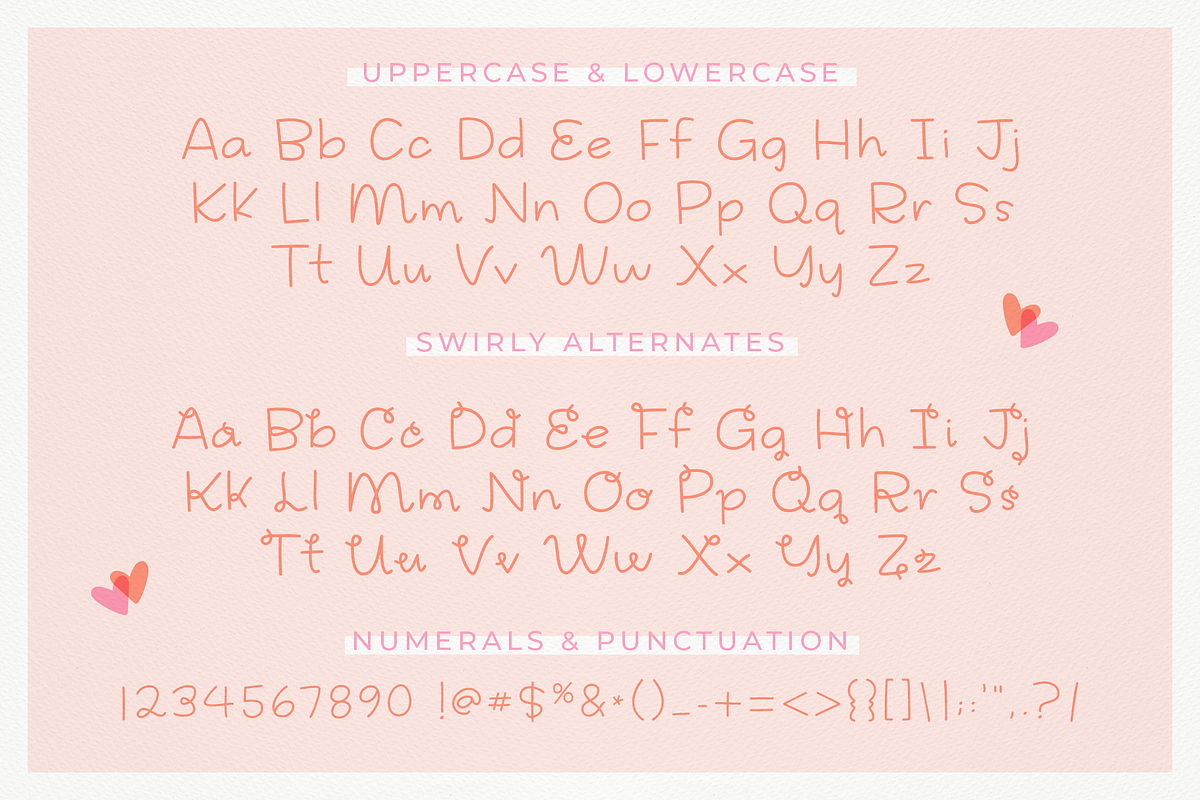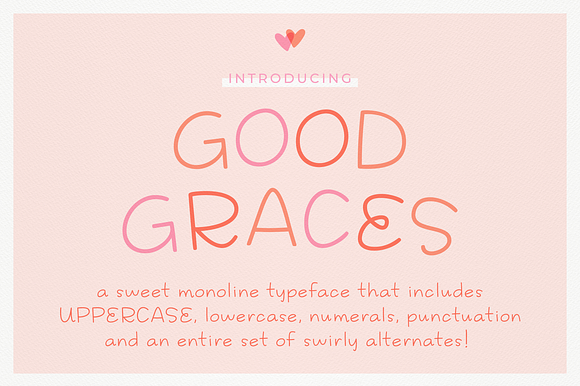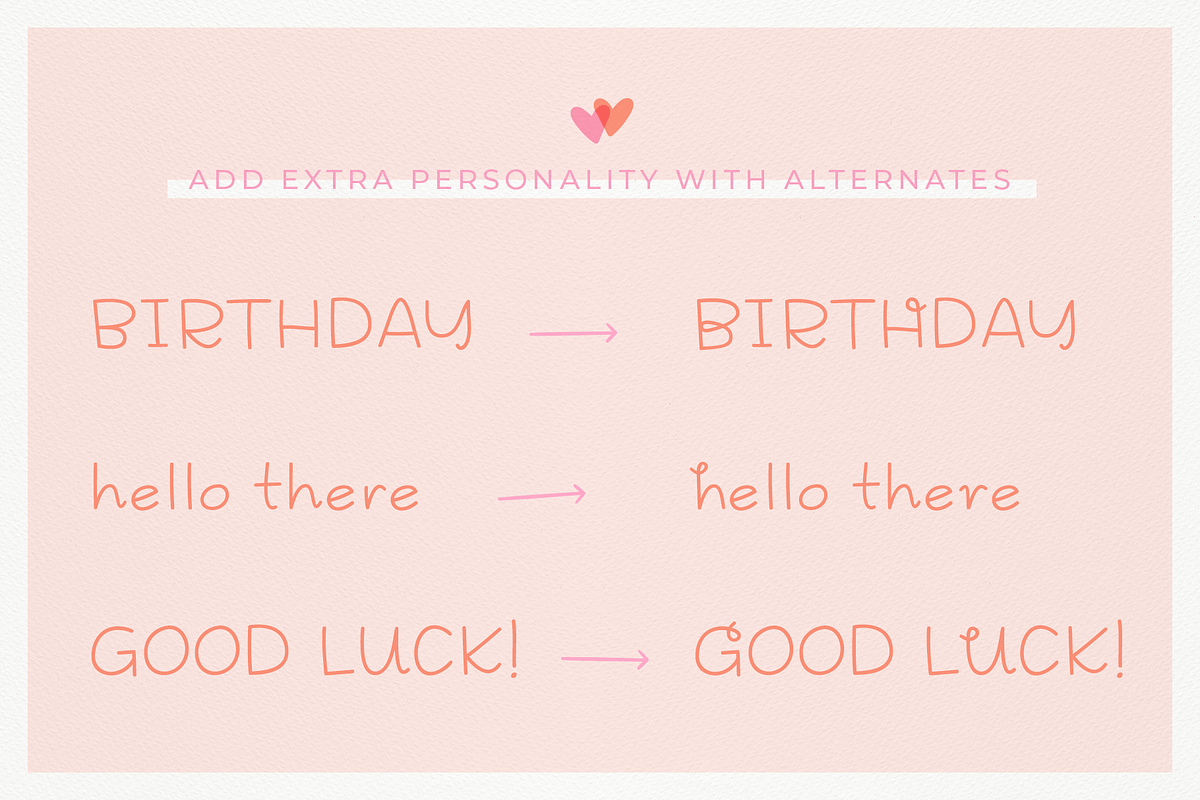
Good Graces | a cute & playful font
Good Graces is a font inspired by sweet southern accents and down-home goodness. Perfect for designers and crafters looking for a cute monoline font with personality! It’s playful and preppy and perfectly suited for invitations, t-shirts, quote prints, shop names and much more.
Good Graces has childlike character and girly flair perfect for digital scrapbooking and crafts and its clean edges make it ideal for vinyl lettering projects.
Quickly add a touch of whimsy by switching out standard characters with the extra-cute swirly alternates using open-type features in Adobe CC programs. Good Graces is also PUA Unicode-Mapped to ensure all glyphs are fully accessible via Character Map (Windows) and Fontbook (Mac) as well as programs such as Cricut Design Space and Silhouette Studio. (If your application does not utilize Open-type features, please view the Creative Market FAQ’s on how to access PUA encoded glyphs -